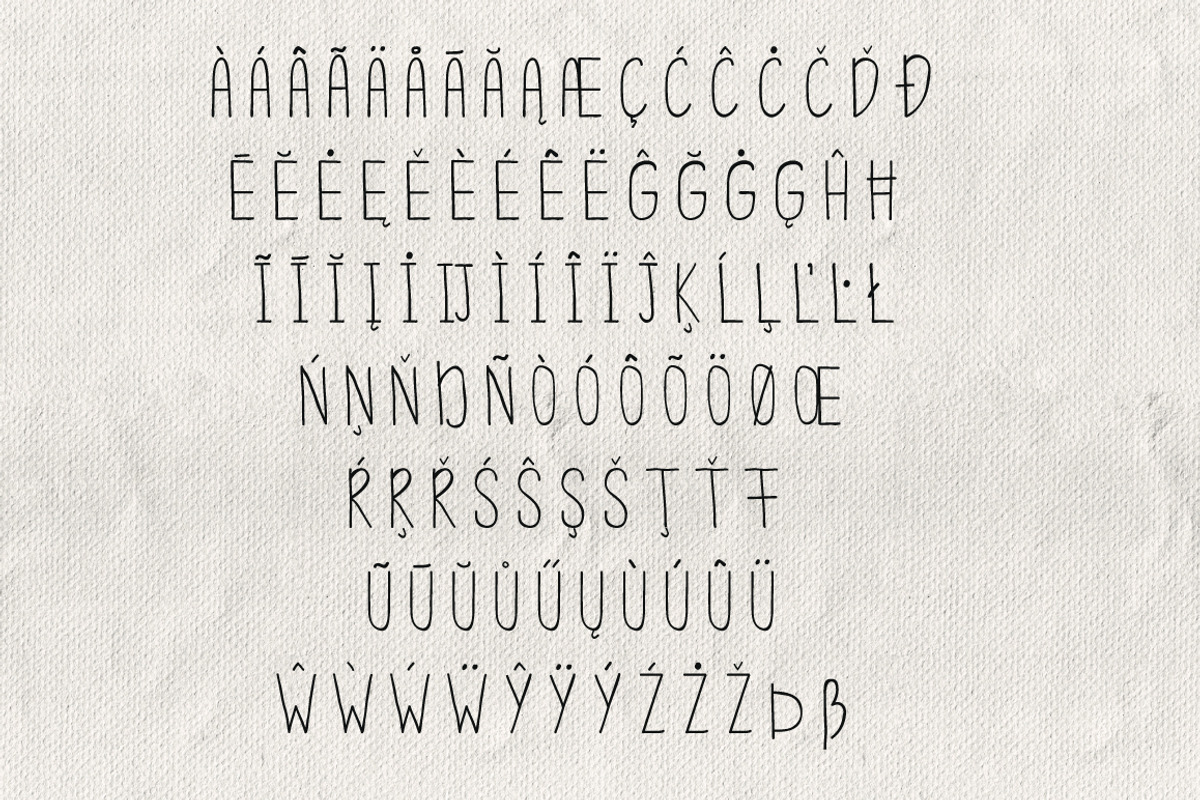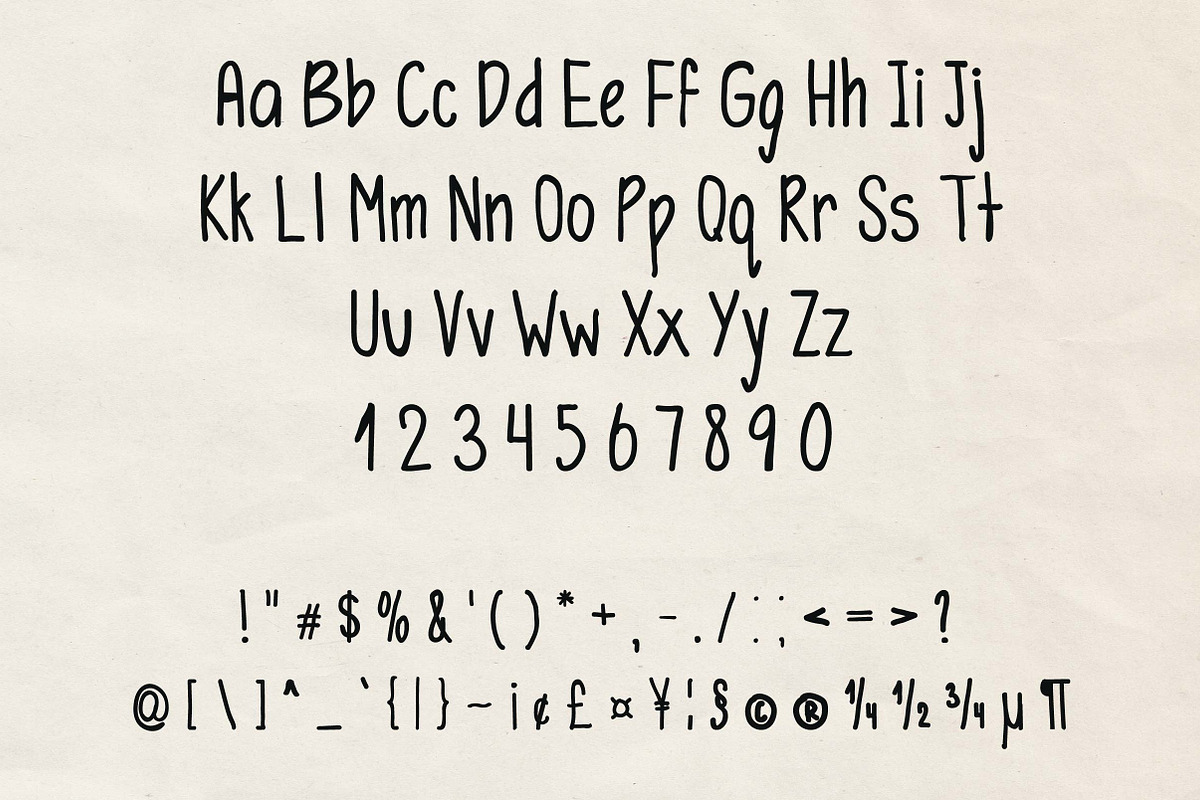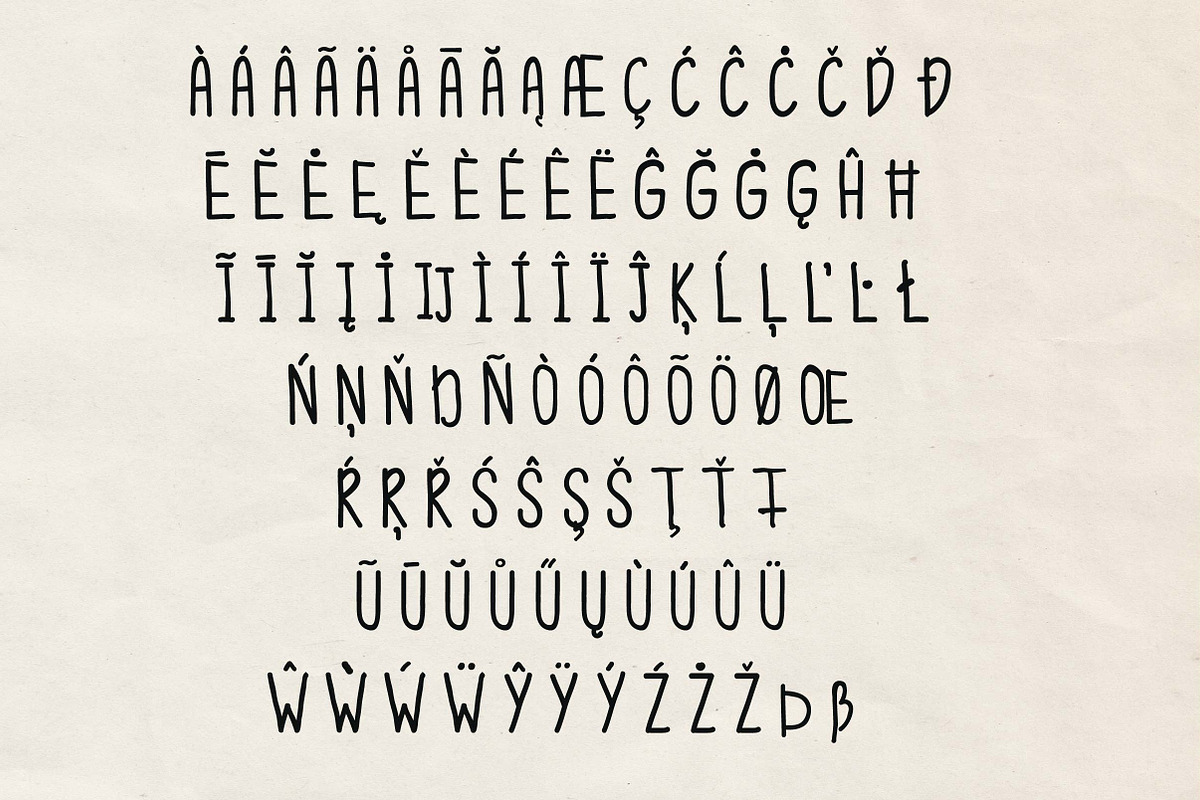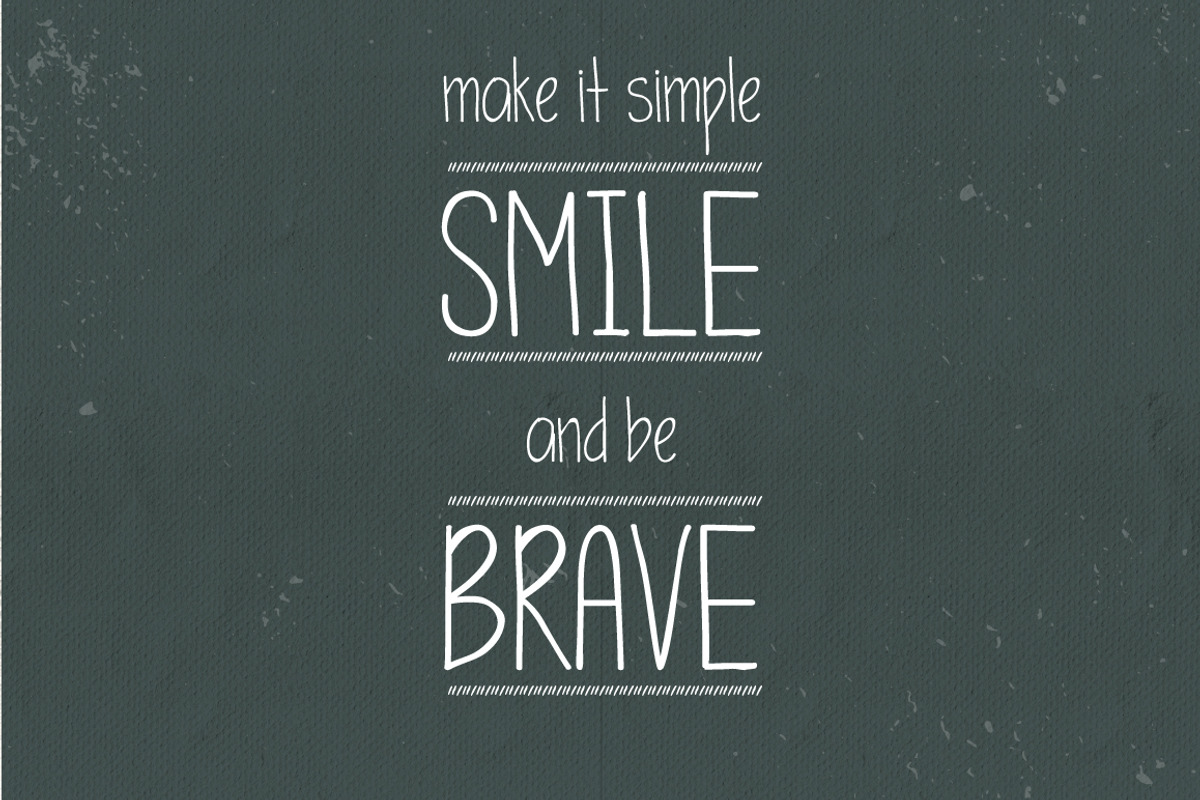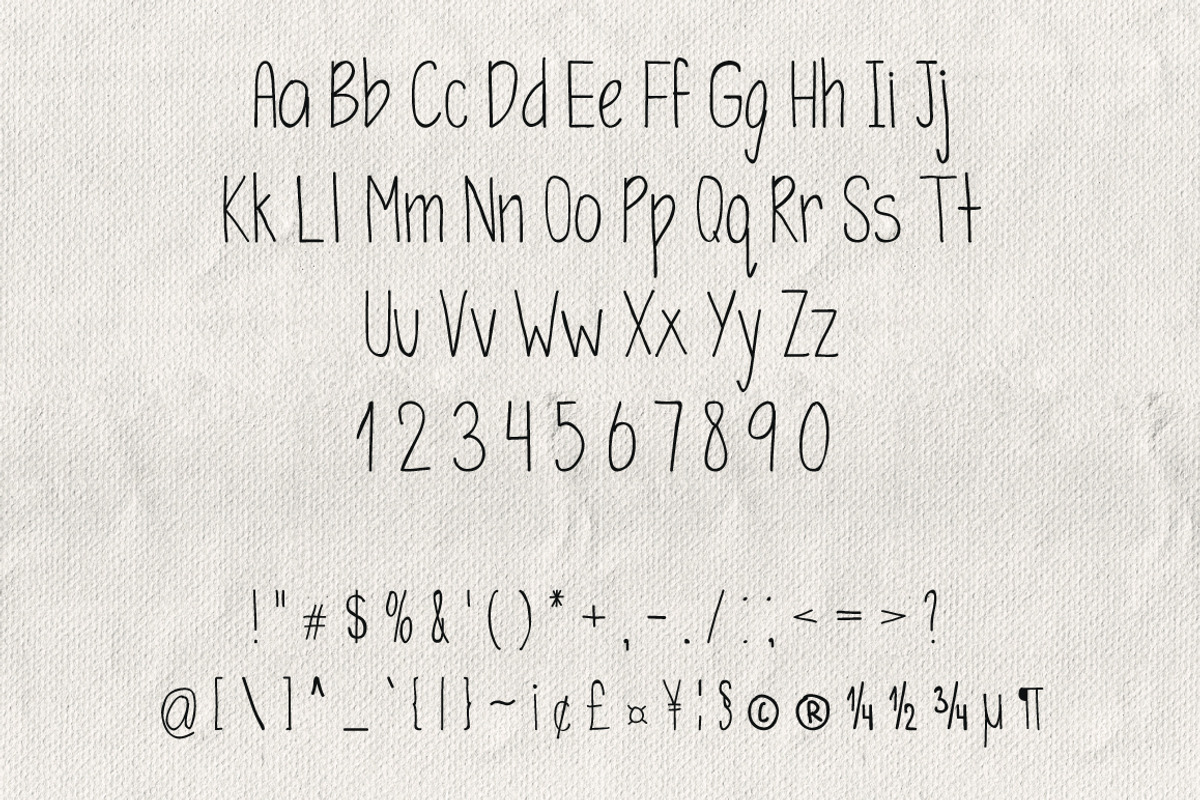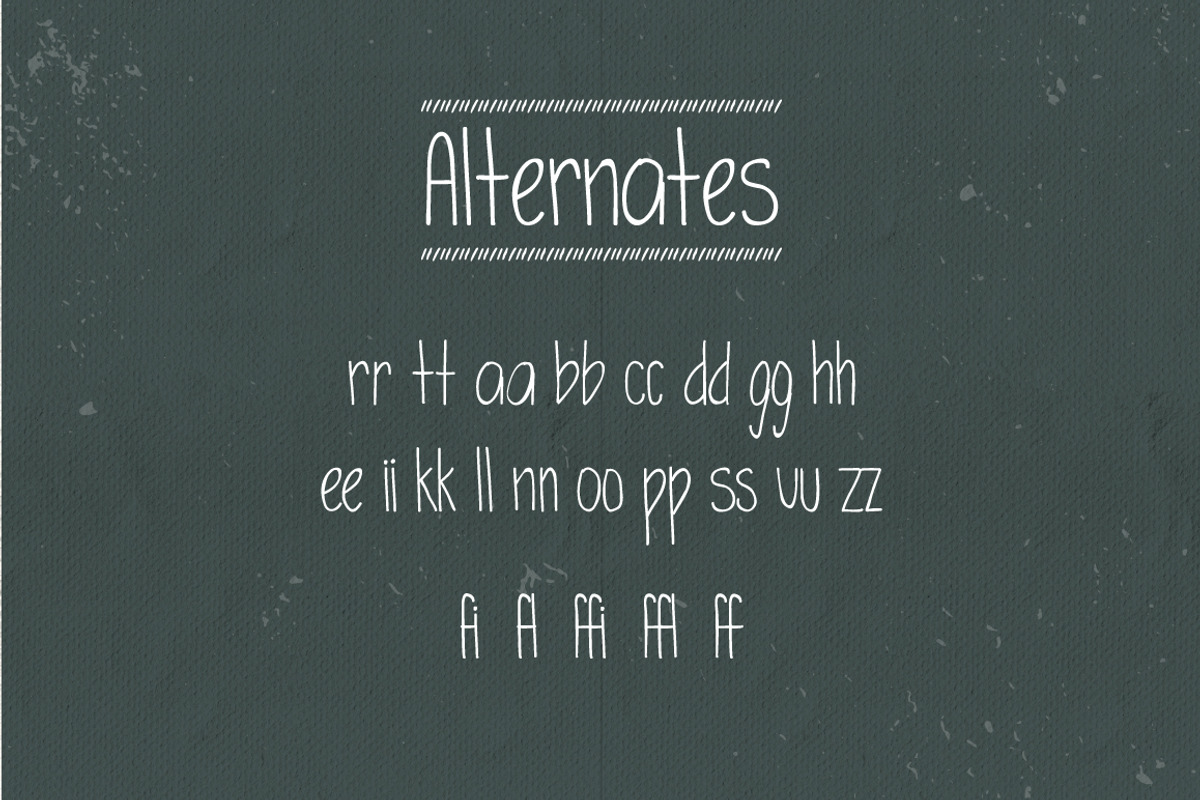
Simplicity Typeface
Simplicity Typeface by Anna Ivanir is a font selected for branding, posters, packaging, typography.
Why Simplicity Typeface is worth a look
Simplicity Typeface by Anna Ivanir fits naturally into Branding, posters, packaging, typography.